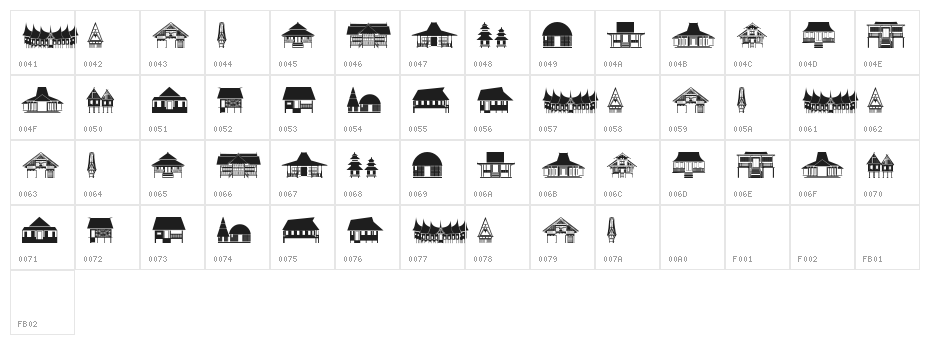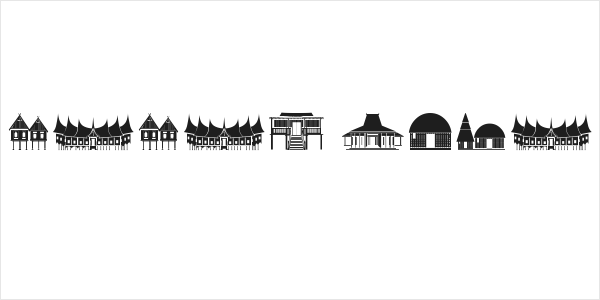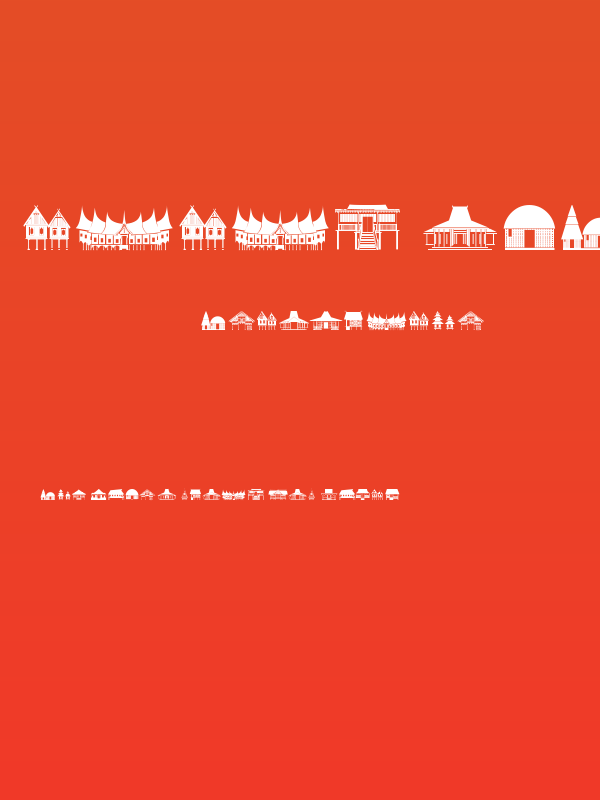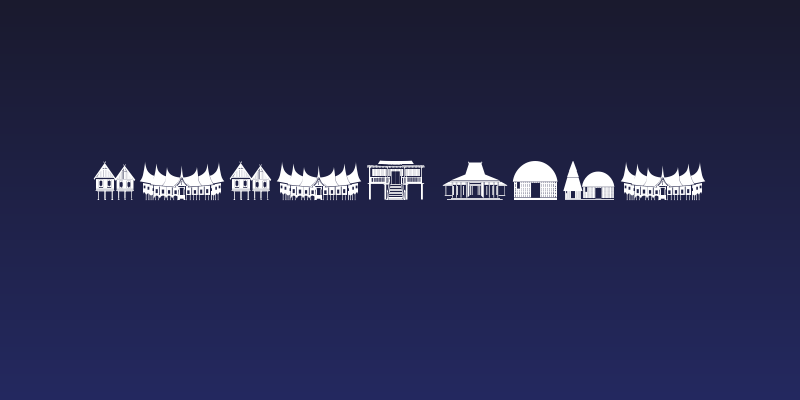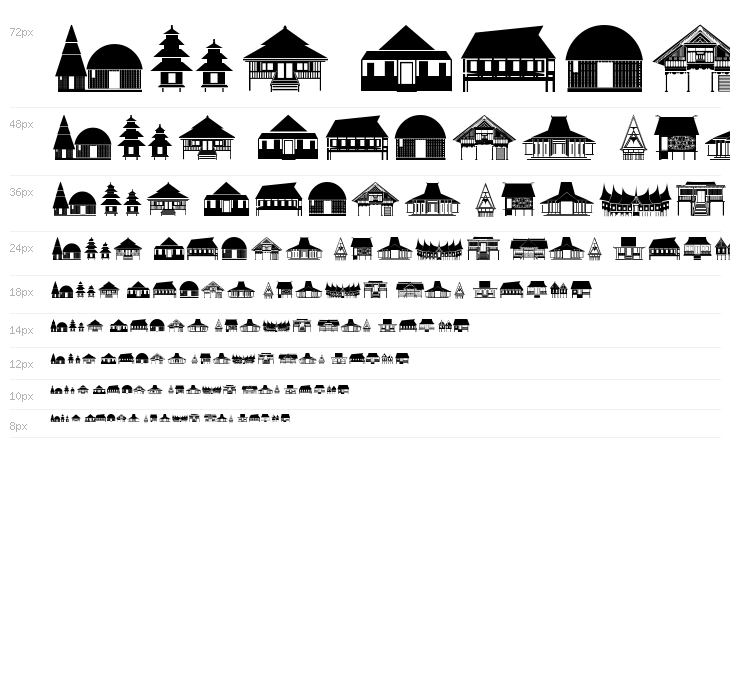
Papan Kita Font
Papan Kita Description
A decorative display font featuring silhouettes of traditional and modern architectural buildings, each glyph representing a unique structure with bold, solid black fills and clear outlines. The style is highly illustrative and thematic, focusing on cultural and architectural motifs rather than standard letterforms.
| Overall Style | Decorative, Thematic, Illustrative |
| Use Case | Logos, Headlines, Posters, Themed graphics |
| Proposed Projects | Cultural posters, travel brochures, event branding, educational materials, themed logos. |